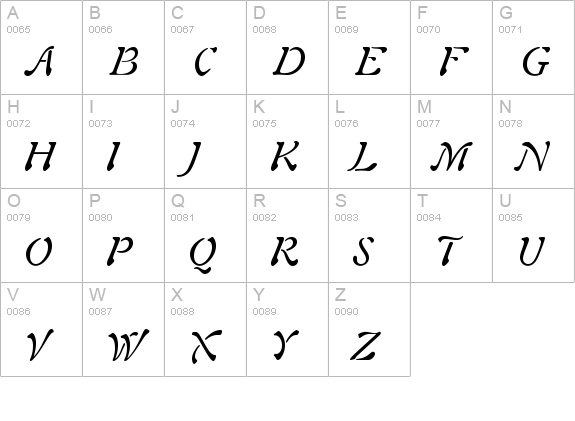
Freeform 721 Italic is a distinctive, italic variant in the Freeform typeface family \xE2\x80\x94 well suited to design and typography projects.
Freeform 721 Italic font exudes elegance and sophistication with its sleek and stylish design. The italicized characters flow gracefully, adding a touch of modernity to any project. Perfect for adding a touch of class to invitations, branding, or editorial designs, this font is versatile and eye-catching. Best of all, Freeform 721 Italic font is completely free to download at FontsMarket.com. Now you can elevate your designs without breaking the bank. Don't miss out on the opportunity to enhance your projects with this stunning and freely available font.